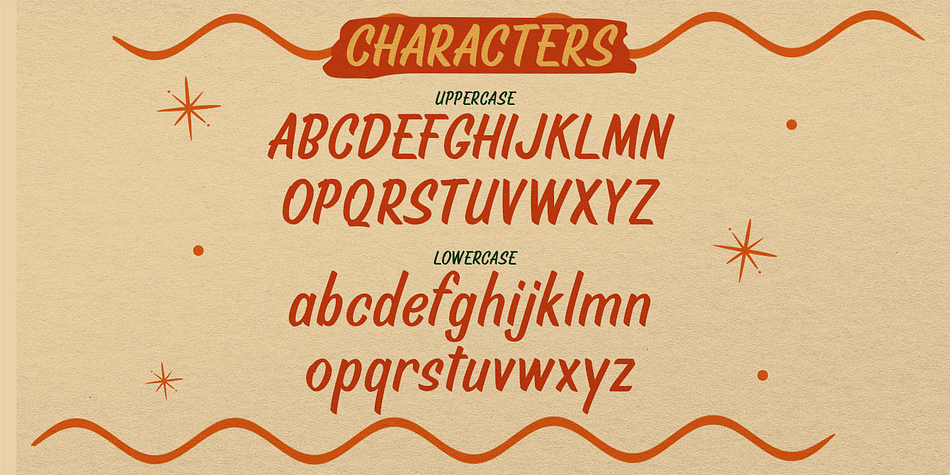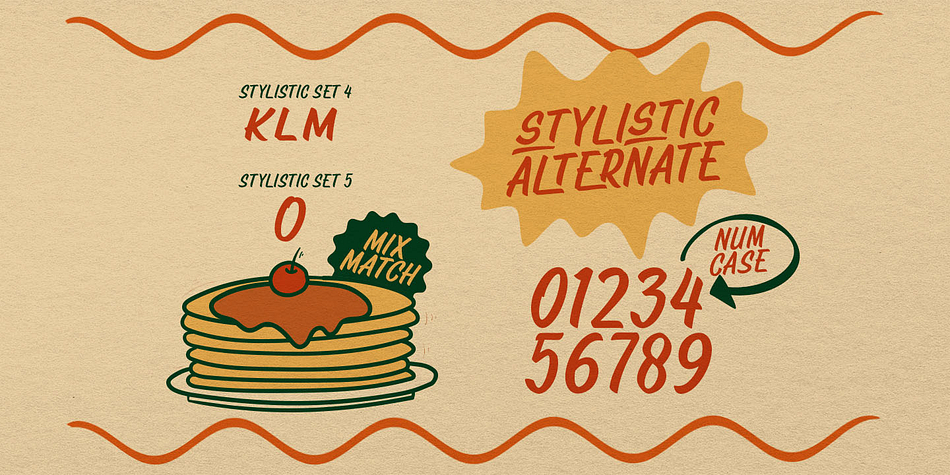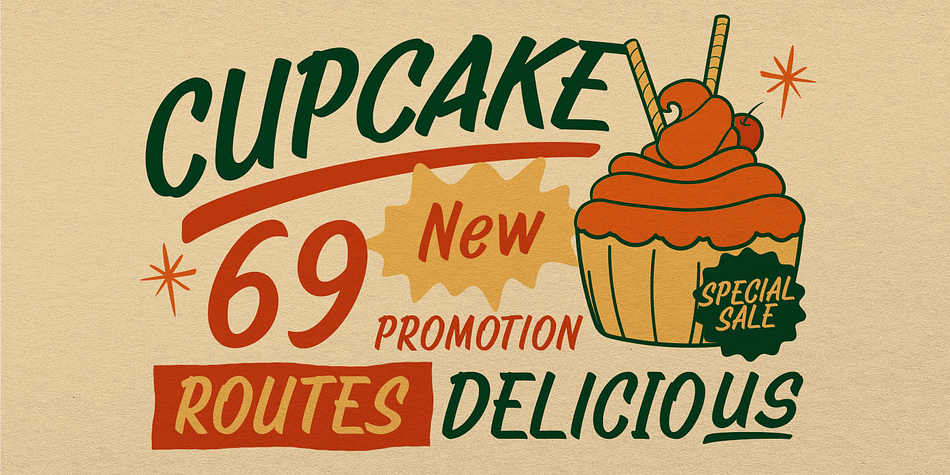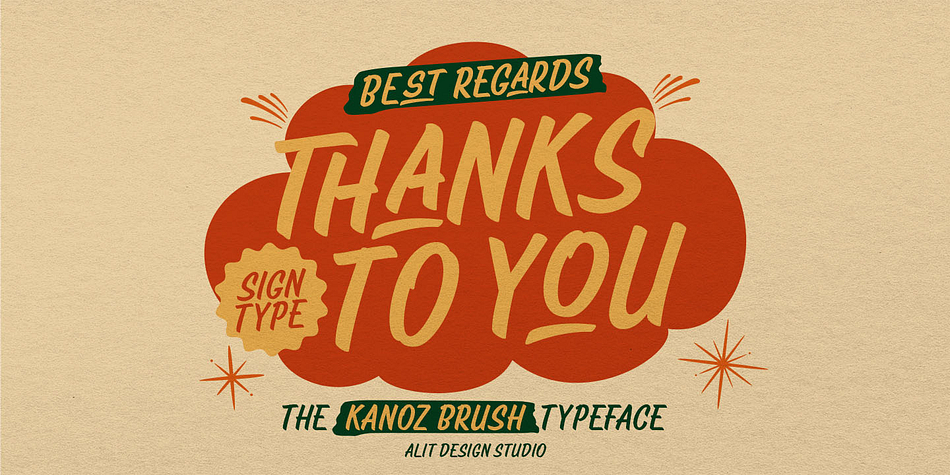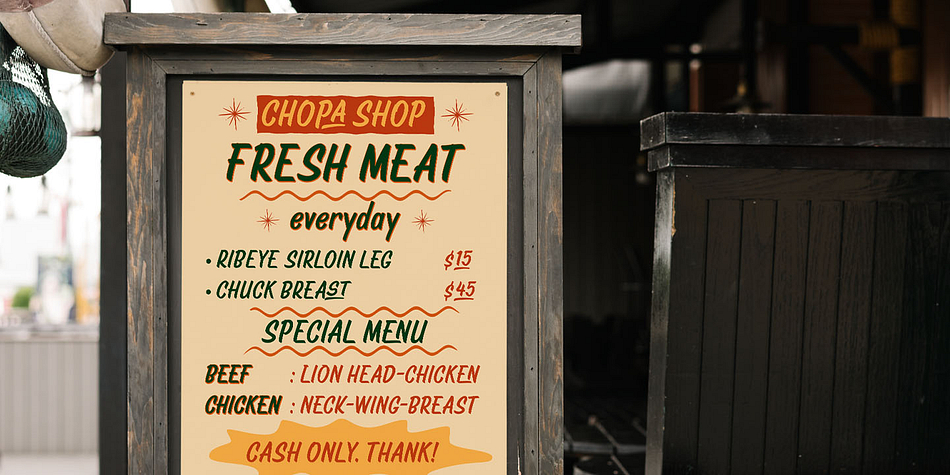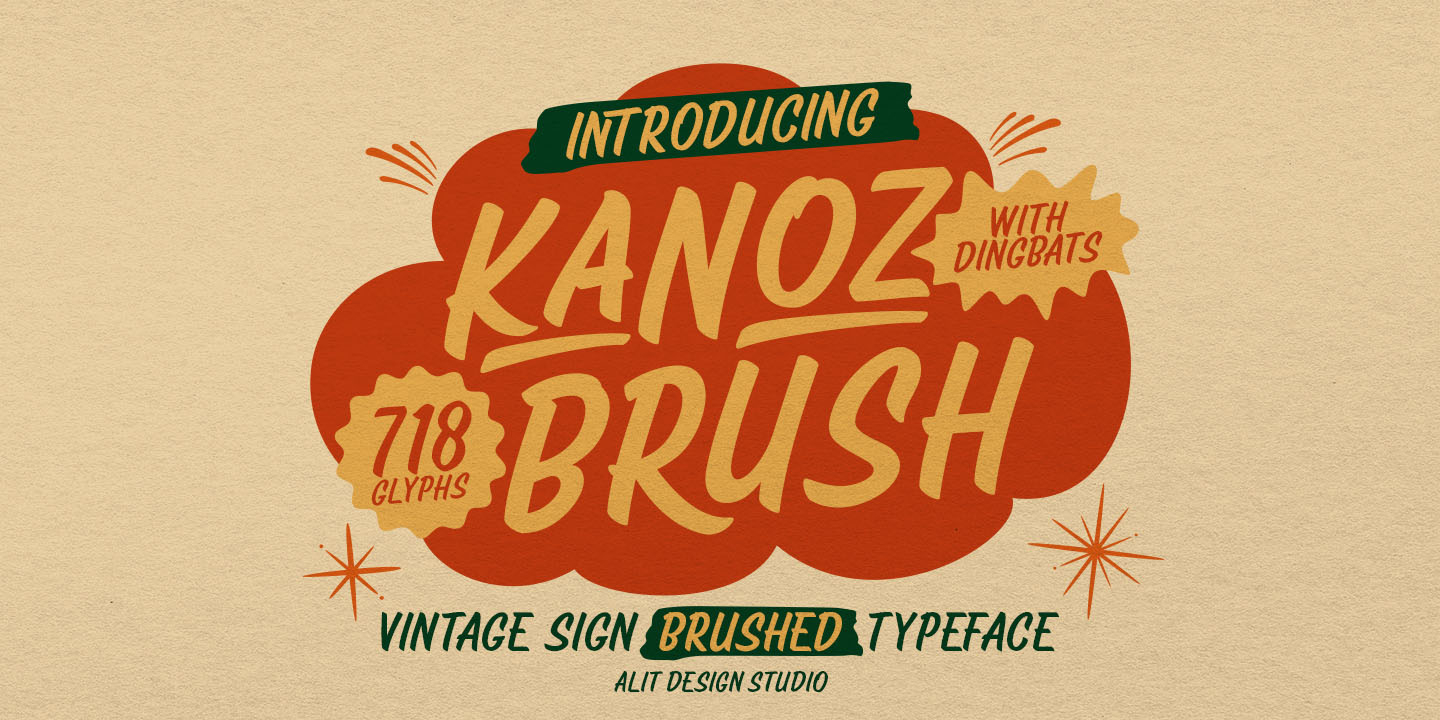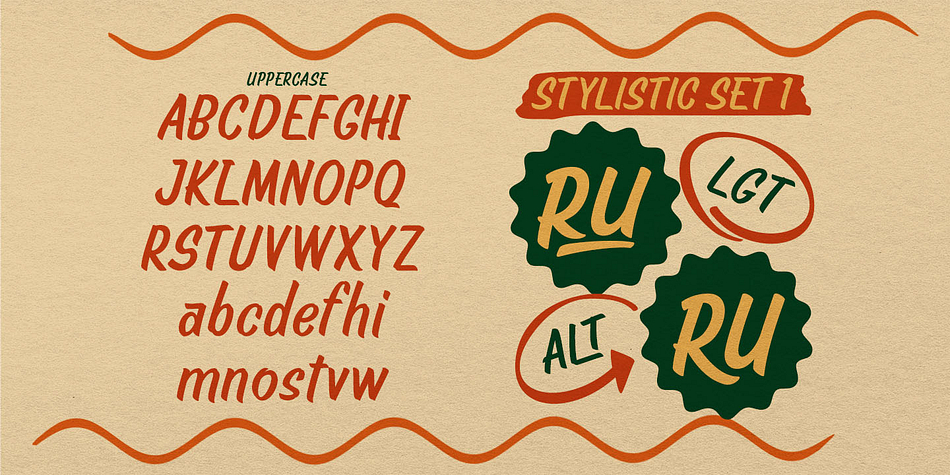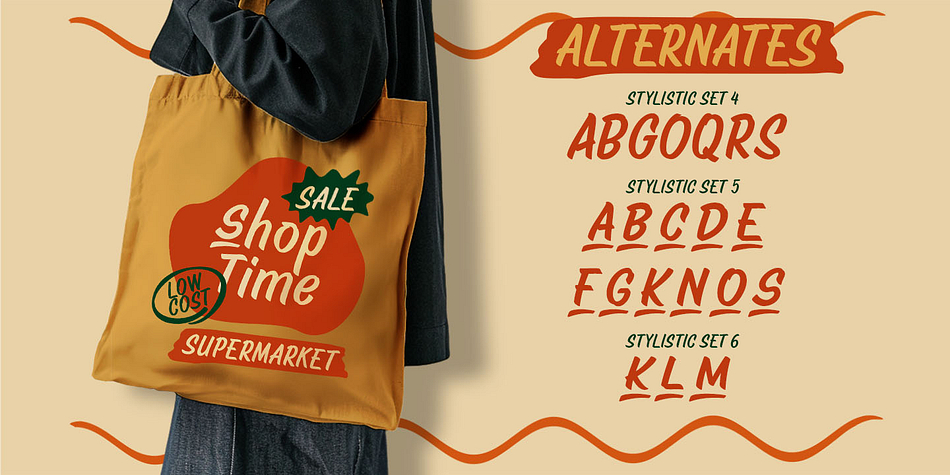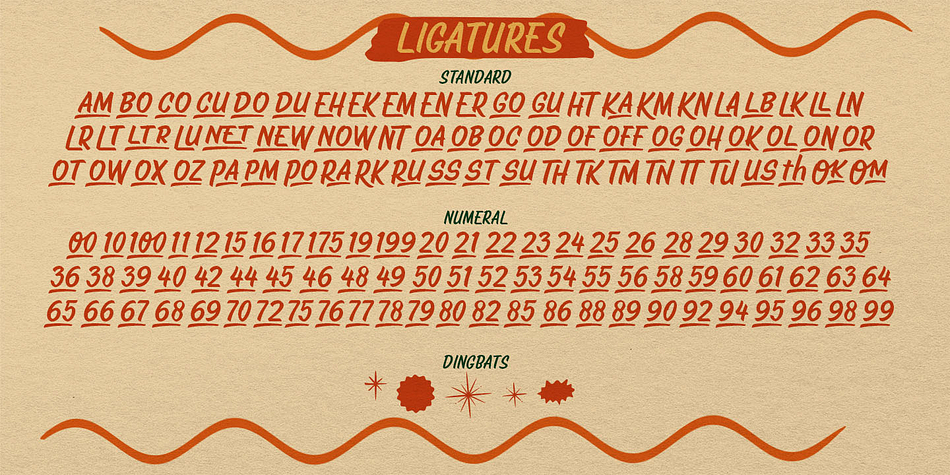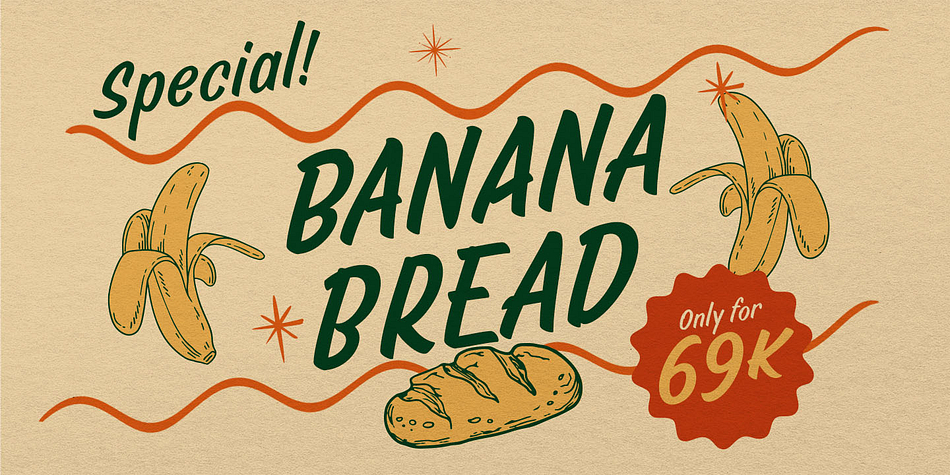
Kanoz Brush
Designed by Alit Suarnegara, Kanoz Brush is a hand drawn font family published by Alit Design.
Kanoz Brush Typeface is a meticulously crafted font that captures the essence of vintage sign art with a modern twist. Inspired by traditional hand-painted signs, this typeface showcases bold, sweeping brush strokes and a natural, textured look that brings an authentic, handcrafted feel to any design.
Key Features:
Hand-Painted Style: Every letter is drawn with the rich, textured strokes of a real brush, giving your designs a human touch and a sense of artistic spontaneity.
Vintage Appeal: Perfect for retro-inspired projects, Kanoz captures the look of mid-century signage, from classic storefronts to old diner boards. It evokes nostalgia while maintaining a modern edge.
Rough, Rugged Edges: Each character is intentionally imperfect, with rugged, uneven edges that highlight its handmade quality, perfect for designs that demand personality and flair.
Versatility: While ideal for vintage-inspired branding, Kanoz Brush Typeface also adapts beautifully to a wide range of creative projects. Use it for everything from eye-catching logos, badges, and headlines to apparel designs, packaging, and posters.
Uppercase and Lowercase Letters: Includes a full set of both uppercase and lowercase characters, numerals, punctuation marks, and multilingual support, ensuring flexibility across various design needs.
Retro Yet Bold: Whether used alone or paired with other fonts, Kanoz creates a bold, impactful visual that draws the viewer’s eye, making it ideal for attention-grabbing headlines and titles.
Perfect For:
Branding & Logos: Create memorable, vintage-inspired logos with a hand-painted flair.
Packaging & Labels: Add a touch of authenticity to product packaging or craft beer labels.
Posters & Flyers: Stand out with bold, textured headlines that evoke old-school charm.
Apparel & Merch: Ideal for T-shirt designs, hats, or other merchandise that needs a retro, artistic touch.
Elevate your design projects with the Kanoz Brush Typeface, where timeless vintage style meets modern creativity!